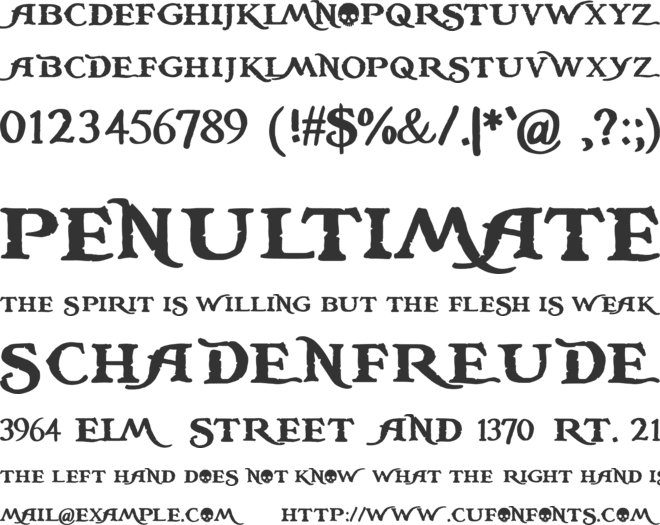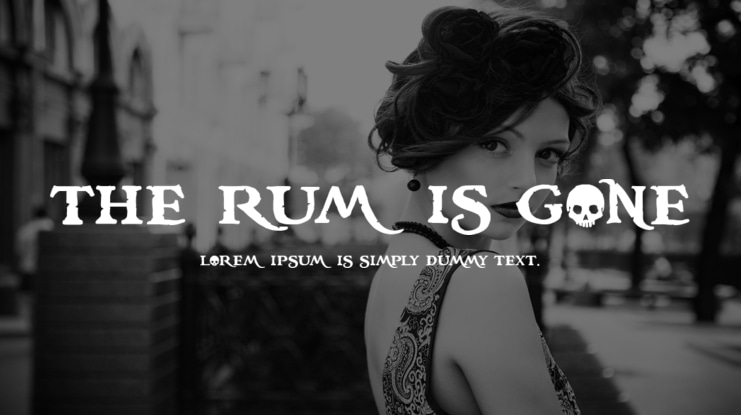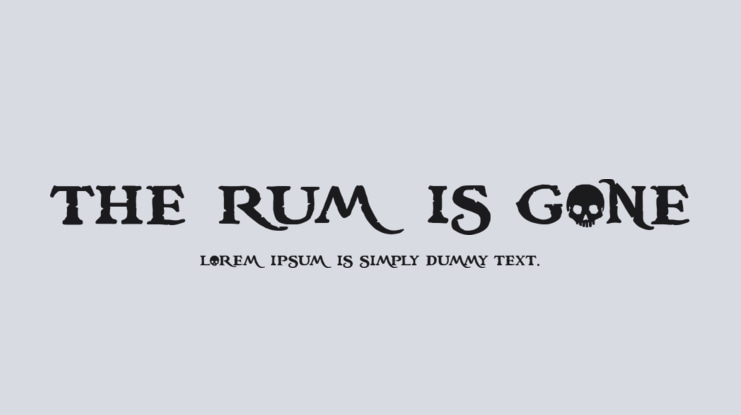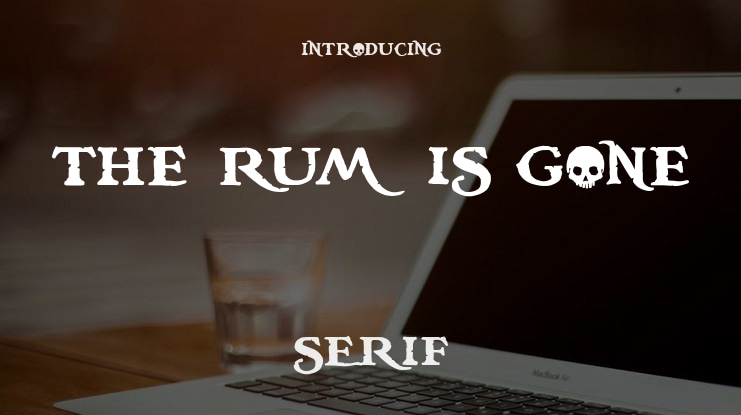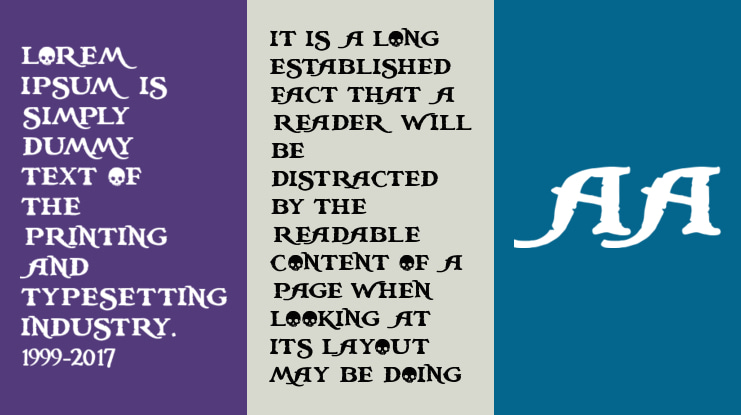
the rum is gone Font
When I first started making fonts, one of my earliest creations was a pirate-themed font inspired by "Pirates of the Caribbean". Although I didn't have much knowledge about font-making at the time, I occasionally go back to that old font and give it a fresh twist.
Introducing "The Rum is Gone", a playful pirate font featuring uppercase and lowercase letters, numbers, special characters, and even Greek characters.